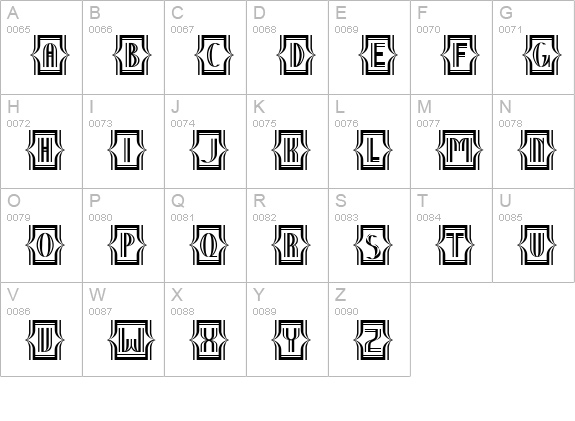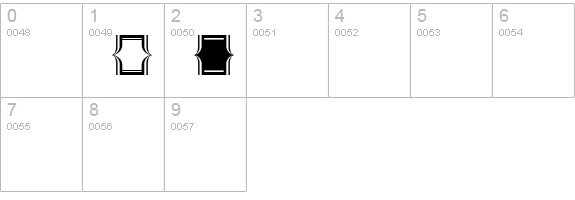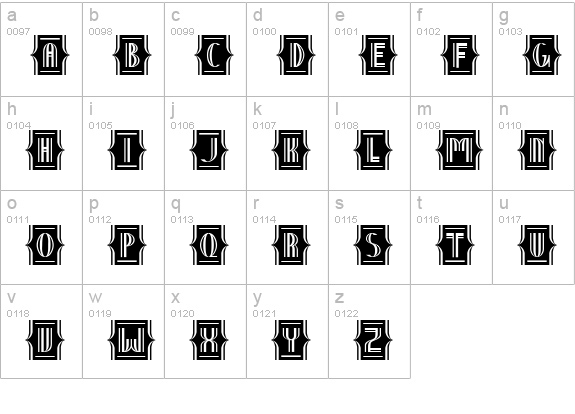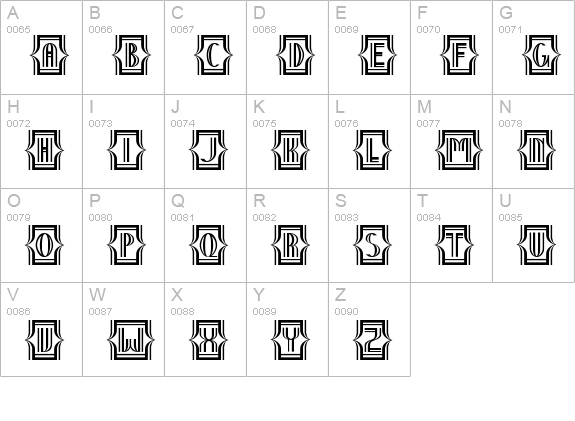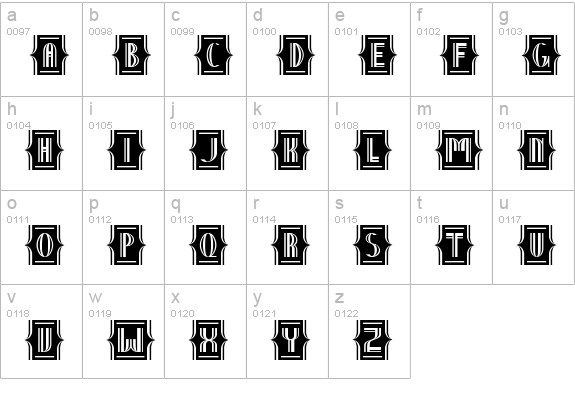
Nineteen Ten Vienna - Extras font is a beautifully crafted typeface that exudes elegance and sophistication. With its intricate details and stylish design, this font is perfect for adding a touch of refinement to any project. The extra elements included in this font set offer a wide range of decorative elements to enhance your designs. Best of all, Nineteen Ten Vienna - Extras font is available for free download at FontsMarket.com. This means you can easily access this stunning font and use it in your creative endeavors without any cost. Whether you're working on a branding project, invitations, or any other design project, Nineteen Ten Vienna - Extras font is sure to elevate your work to new heights. Download it today and add a touch of class to your designs!